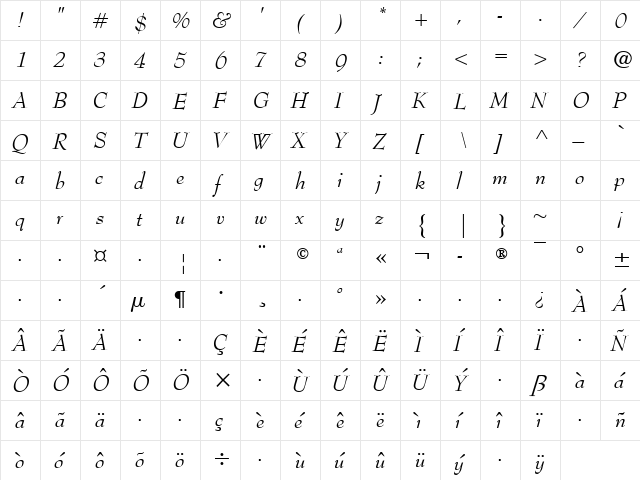
Metro Italic
Design Context for Metro Typeface
Metro takes a measured approach to typography — its balanced proportions and neutral character make it a reliable workhorse for both digital and print work. Its italic angle brings a sense of urgency and motion to the letterforms.
Pro Tip: Use Metro for emphasis, pull quotes, and subheadings where its slanted energy can add rhythm to the layout.